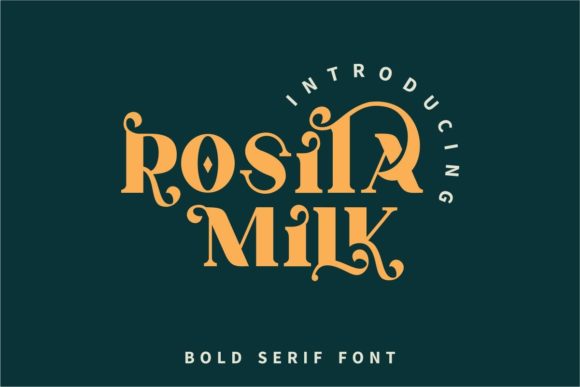
Immerse yourself in the captivating world of Rosita Milk, a serif font that exudes boldness, distinction, and a touch of irresistible coolness. This extraordinary typeface is the brainchild of GFRcreative, a renowned master in the realm of typography.
Rosita Milk is not just a font; it's an artistic masterpiece that will elevate your designs to new heights. Its bold strokes and elegant curves dance harmoniously on the page, creating a visual symphony that captivates the eye. Whether you're crafting stunning posters, eye-catching flyers, or captivating prints, Rosita Milk will effortlessly transform your words into works of art.
But Rosita Milk's allure extends far beyond its aesthetic appeal. It's a font that speaks to your emotions, evoking a sense of sophistication, confidence, and playfulness. Its versatility knows no bounds, making it the perfect choice for a multitude of design projects.
Imagine the impact of your next poster, where Rosita Milk's bold letters leap off the page, demanding attention and leaving a lasting impression. Or envision your flyer, adorned with Rosita Milk's elegant curves, inviting readers to delve into your message with intrigue and delight.
The possibilities are endless when you unleash the power of Rosita Milk. Its timeless beauty and captivating charm will infuse your designs with a touch of magic, leaving an unforgettable mark on your audience.